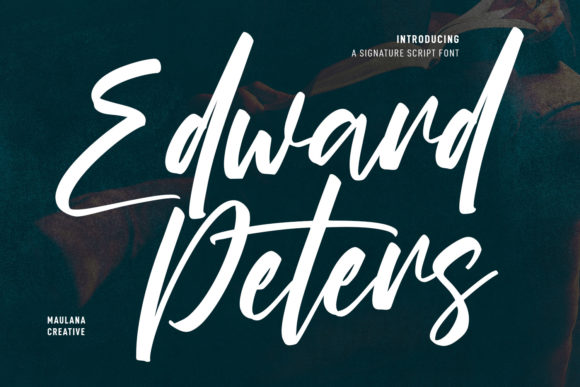
**Introducing Edward Peters: The Script Font That'll Make Your Signature Sizzle!**
In the realm of digital signatures, Edward Peters stands tall as a beacon of sophistication and style. Its elegant curves and captivating glyphs dance across the screen, transforming your mundane signature into a masterpiece of calligraphy.
Edward Peters isn't just a font; it's an expression of your unique personality. Its intricate flourishes and graceful serifs add a touch of flair to every stroke, making your signature a reflection of your impeccable taste.
With Edward Peters, you'll command attention wherever you go. Whether you're closing a million-dollar deal or sending a casual email, your signature will leave a lasting impression.
But Edward Peters is more than just a pretty face. Its versatility extends far beyond the realm of signatures. Unleash your creativity and use it for invitations, logos, social media graphics, and more. Its timeless appeal ensures that your designs will turn heads and ignite hearts.
Imagine the allure of your wedding invitations adorned with Edward Peters' enchanting script. Your guests will be mesmerized by its graceful elegance, setting the tone for an unforgettable celebration.
And when you're looking to make a statement on social media, Edward Peters will elevate your posts to new heights. Its captivating charm will draw followers in like moths to a flame, ensuring that your brand shines brighter than ever before.
So why settle for ordinary when you can embrace the extraordinary? Edward Peters is the script font that will transform your digital presence, making you stand out from the crowd and leaving an unforgettable impression on all who encounter your unique signature.